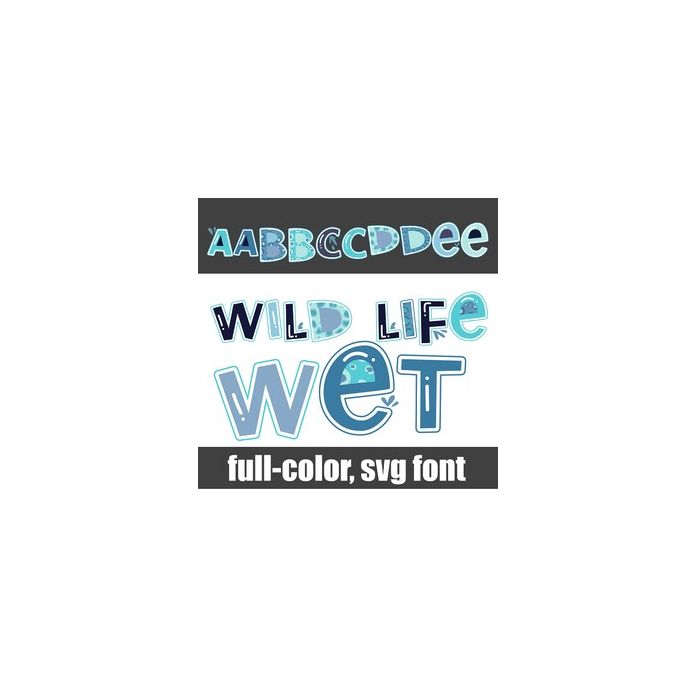
This full-color font features animal prints in blue and splashes throughout. There is a second version of each uppercase letter in a different color with a big swoosh available through Silhouette's glyph map.